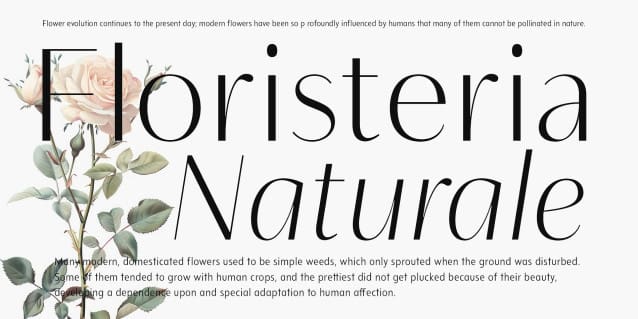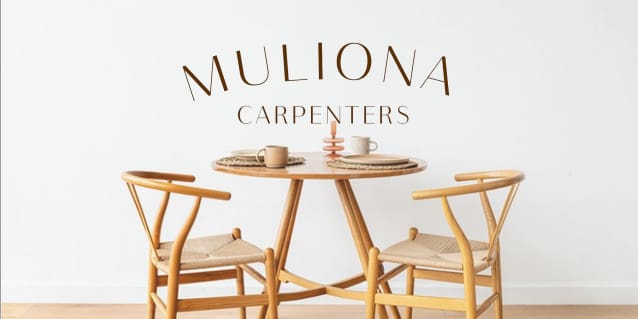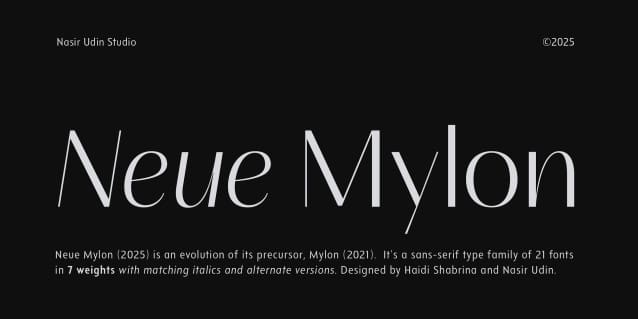
Neue Mylon Font Family
Neue Mylon Font Family is an evolution of its precursor, Mylon (2021). It’s a high-contrast display sans serif type family of 21 fonts in 7 weights with matching italics and alternates versions.
Neue Mylon works well with headlines or short paragraphs, suitable for branding with elegant vibes. It has extended latin character set that supports 200+ latin-based languages.